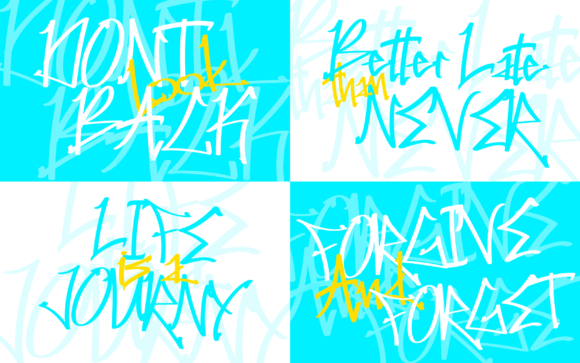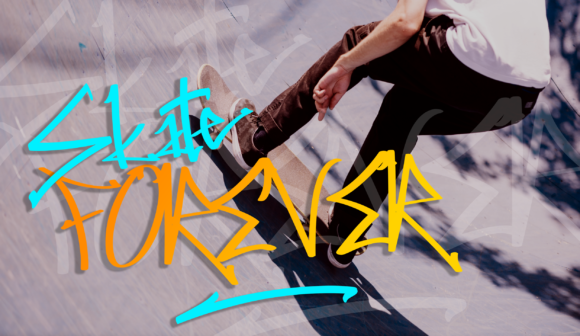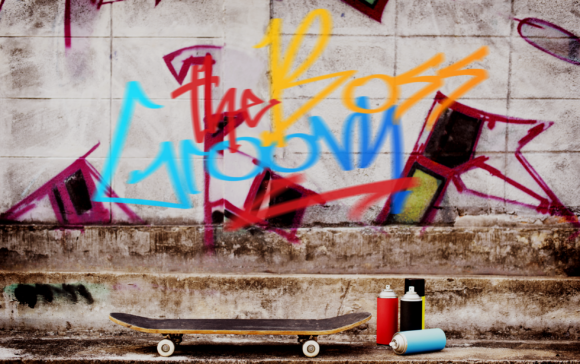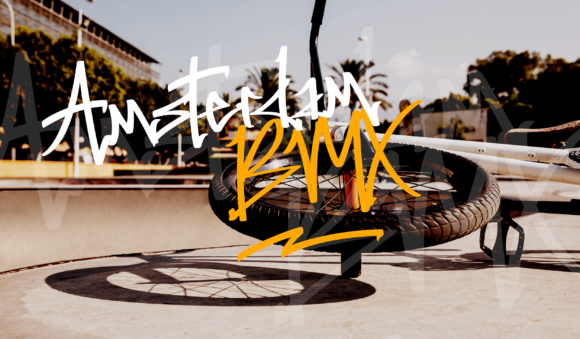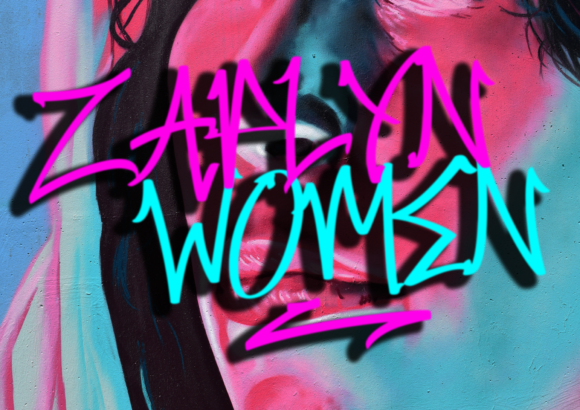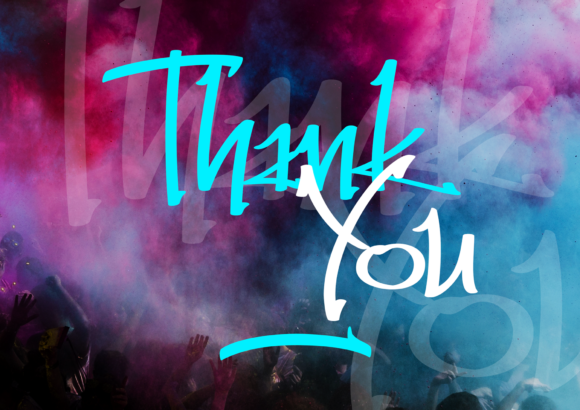
Introduction to Shoel Crack Font Font
Fonts play a crucial role in design, and the Shoel Crack Font font is a typeface that brings both character and versatility to any project. Whether you’re working on a branding project, a website, or a print design, the Shoel Crack Font font offers a unique style that can elevate your work.
Shoel Crack is a graffiti font.
Use this amazing display font to add a unique touch to your upcoming projects .
Key Features of Shoel Crack Font Font
Why Choose Shoel Crack Font Font?
The Shoel Crack Font font is more than just a typeface – it’s a design tool that helps you communicate your message with style and clarity. Its unique character set and versatile design make it suitable for a wide range of applications, from elegant invitations to bold headlines.
With its carefully crafted letterforms and balanced proportions, the Shoel Crack Font font ensures readability and visual appeal across all mediums.
What makes Shoel Crack Font font special?
The Shoel Crack Font font stands out with its unique design, exceptional readability, and versatility across various design applications.